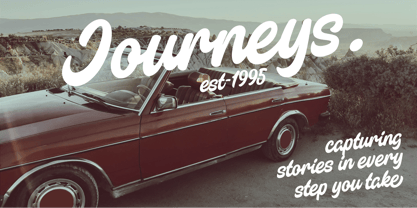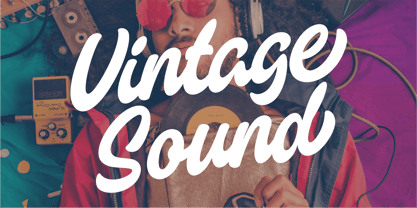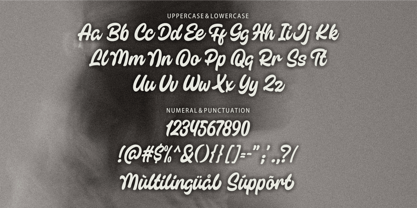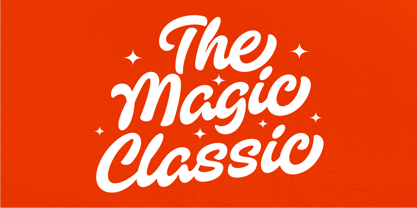
Lingkar Timor
by Hanzel Space
The Lingkar Timor Font Family was designed by Hanief Farandi and published by Hanzel Space. Lingkar Timor contains 1 styles. More about this family
Lingkar Timor - Vintage Script Font A font designed with a vintage touch, with bold, natural lettering that offers modern ease of use. Lingkar Timor is designed for projects that require a touch of nostalgia while remaining stylish and legible. This type of font is perfectly made to be applied especially in logos, and the other various formal forms such as invitations, labels, logos, magazines, books, greeting / wedding cards, packaging, fashion, make up, stationery, novels, labels or any type of advertising purpose. Features: Uppercase & Lowercase Numerals & Punctuation Ligatures Multilanguage Supports Swash Thanks so much for checking out my shop! Cheers! Happy Creating! Hanzel Space Studio
Designers: Hanief Farandi
Foundry: Hanzel Space